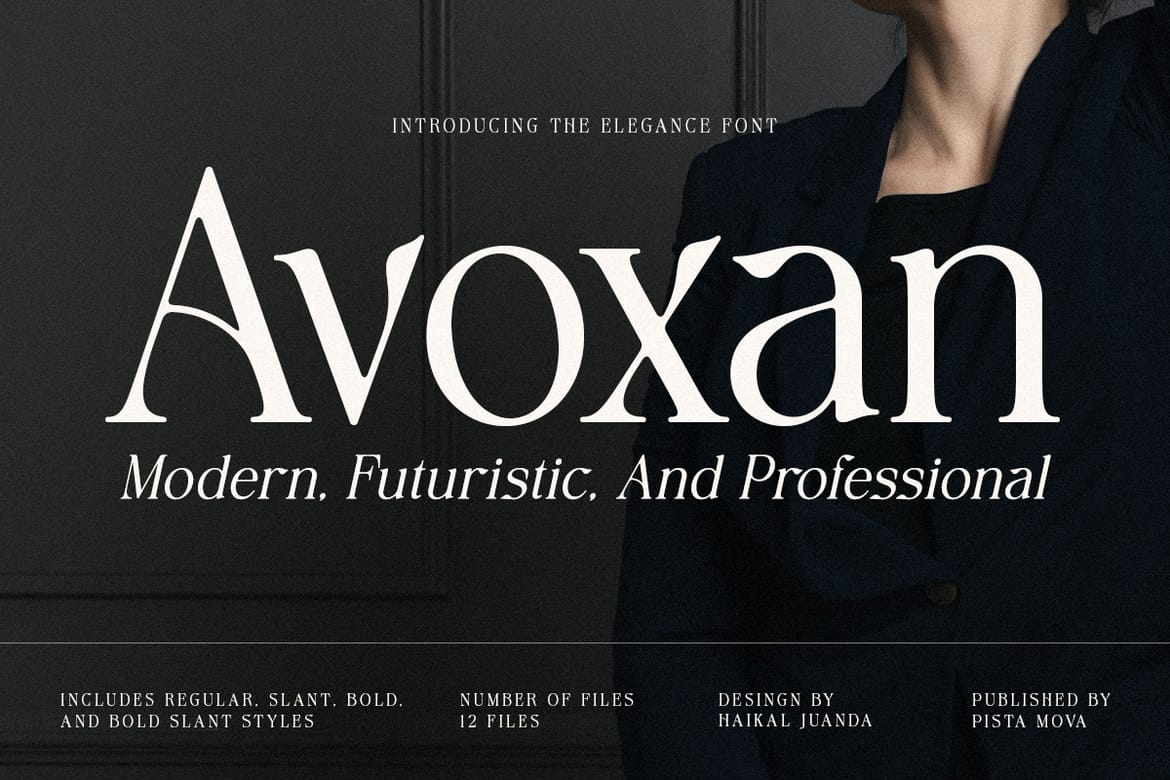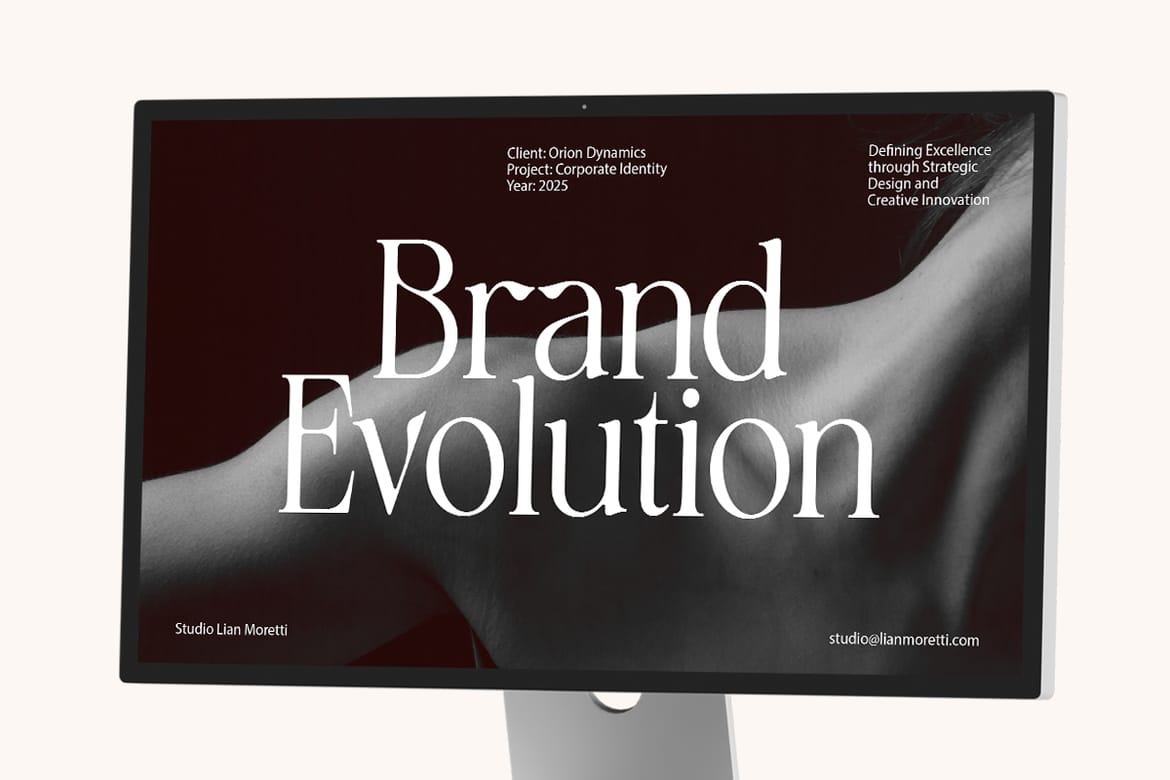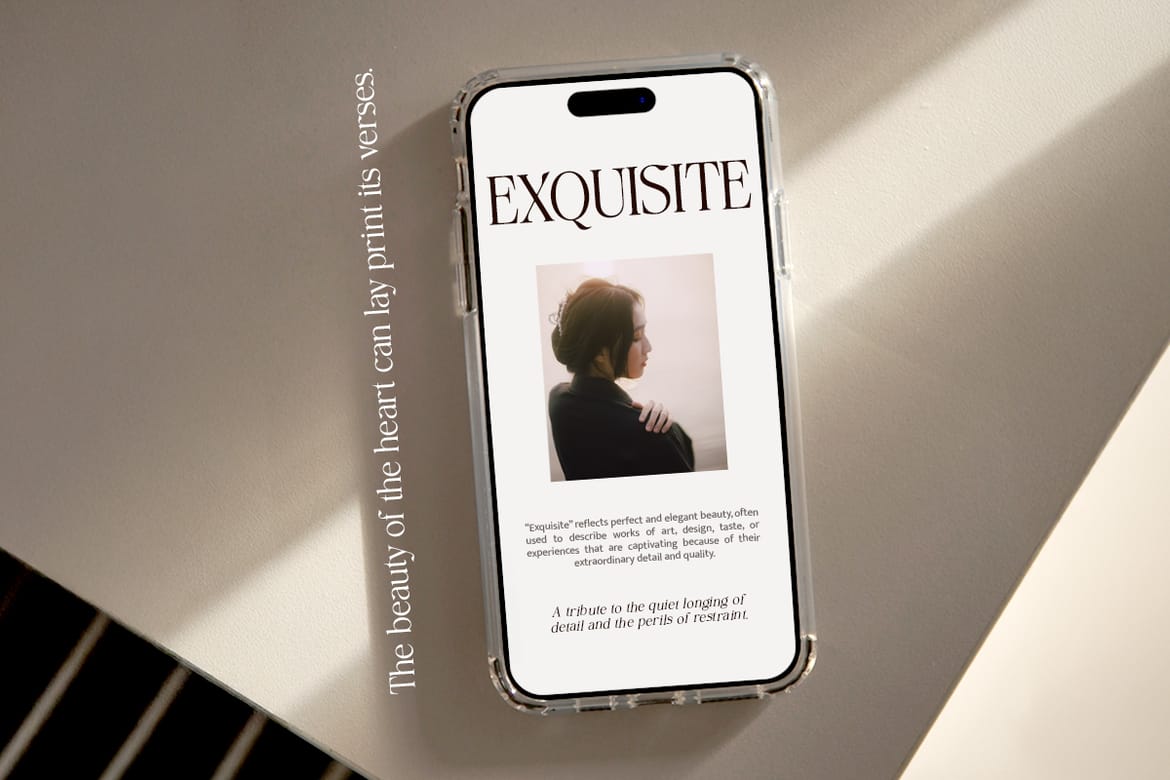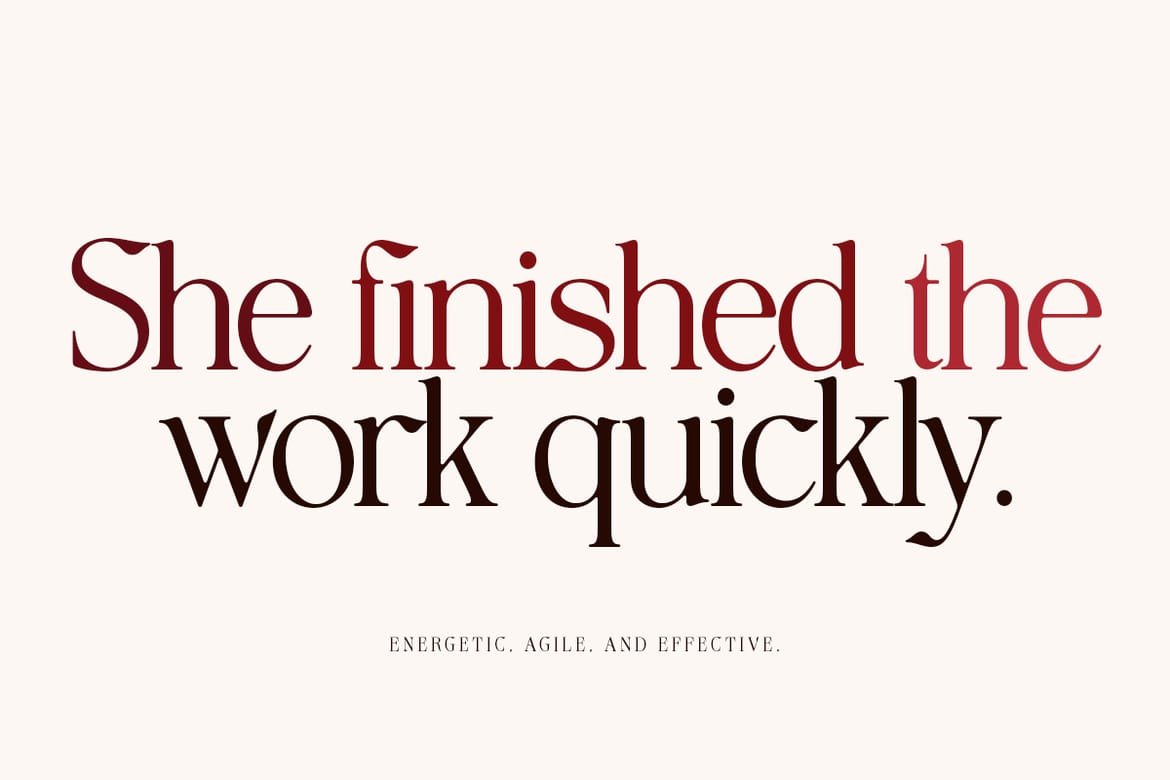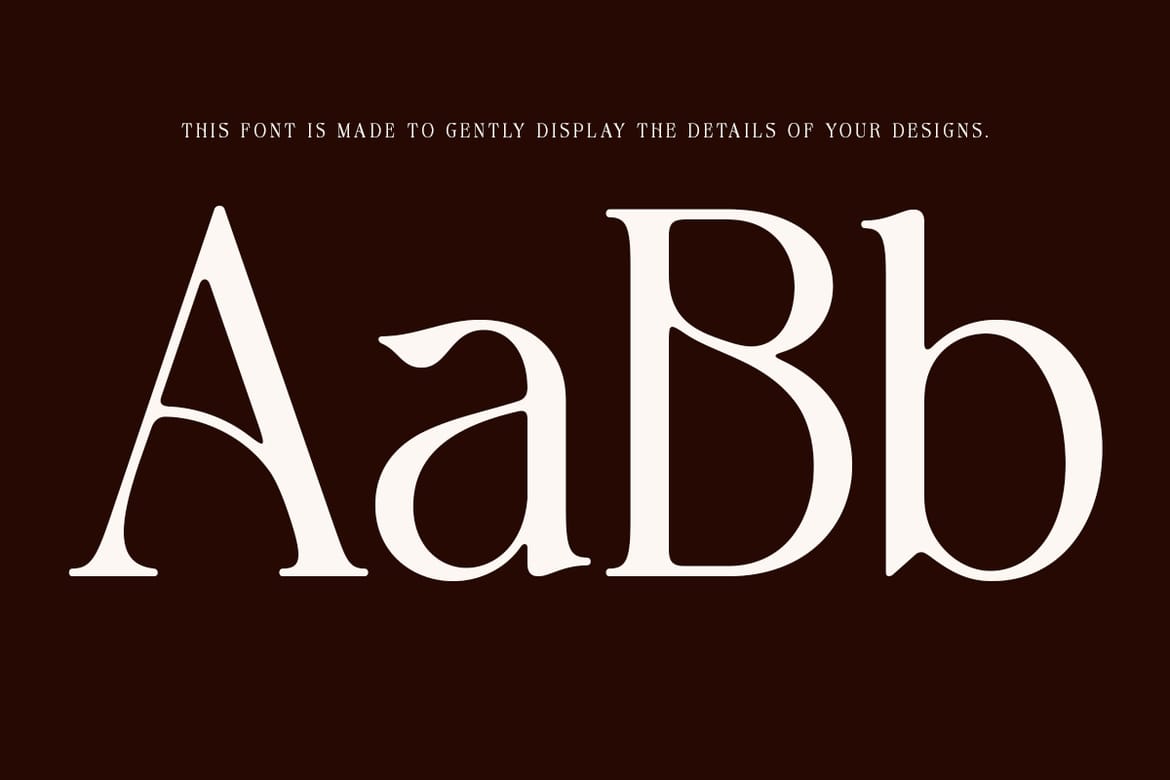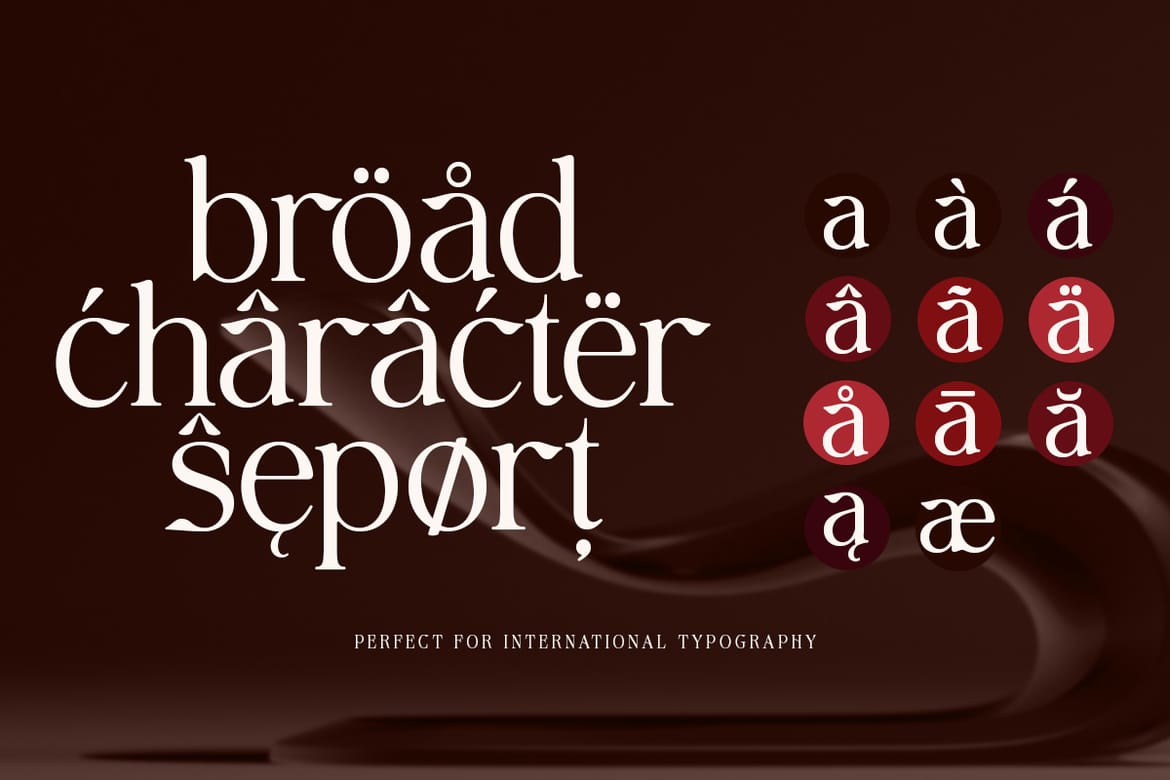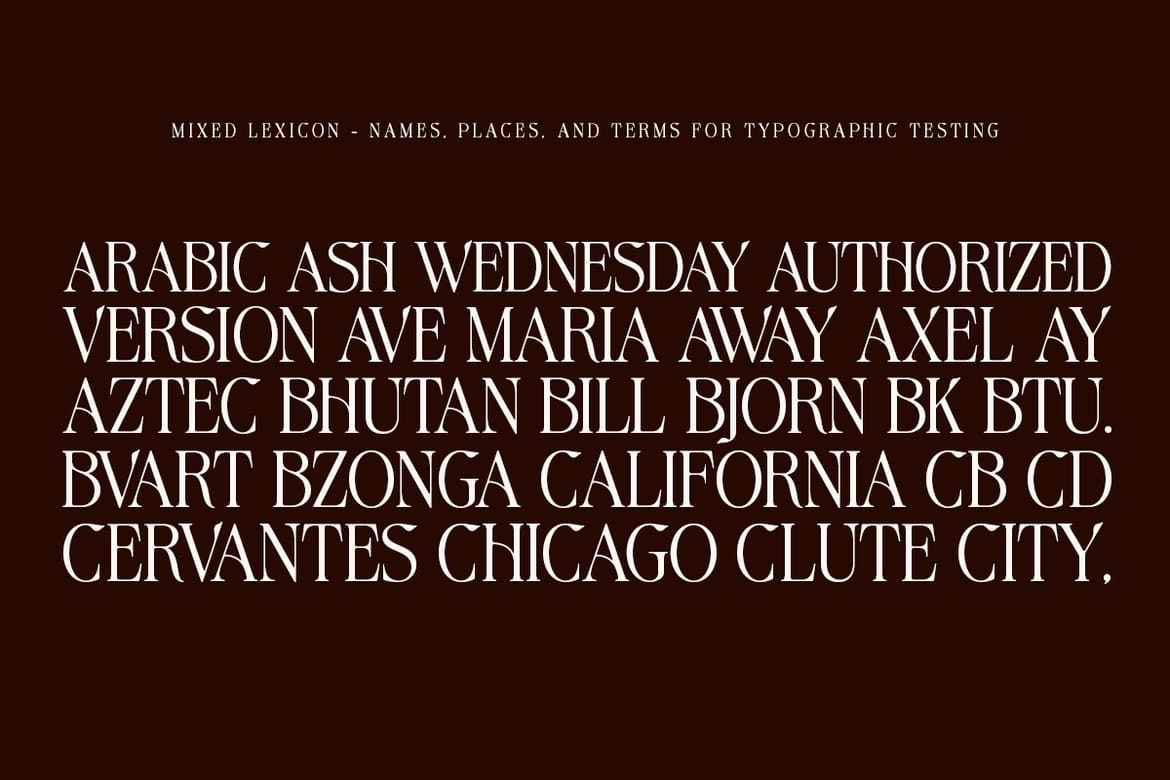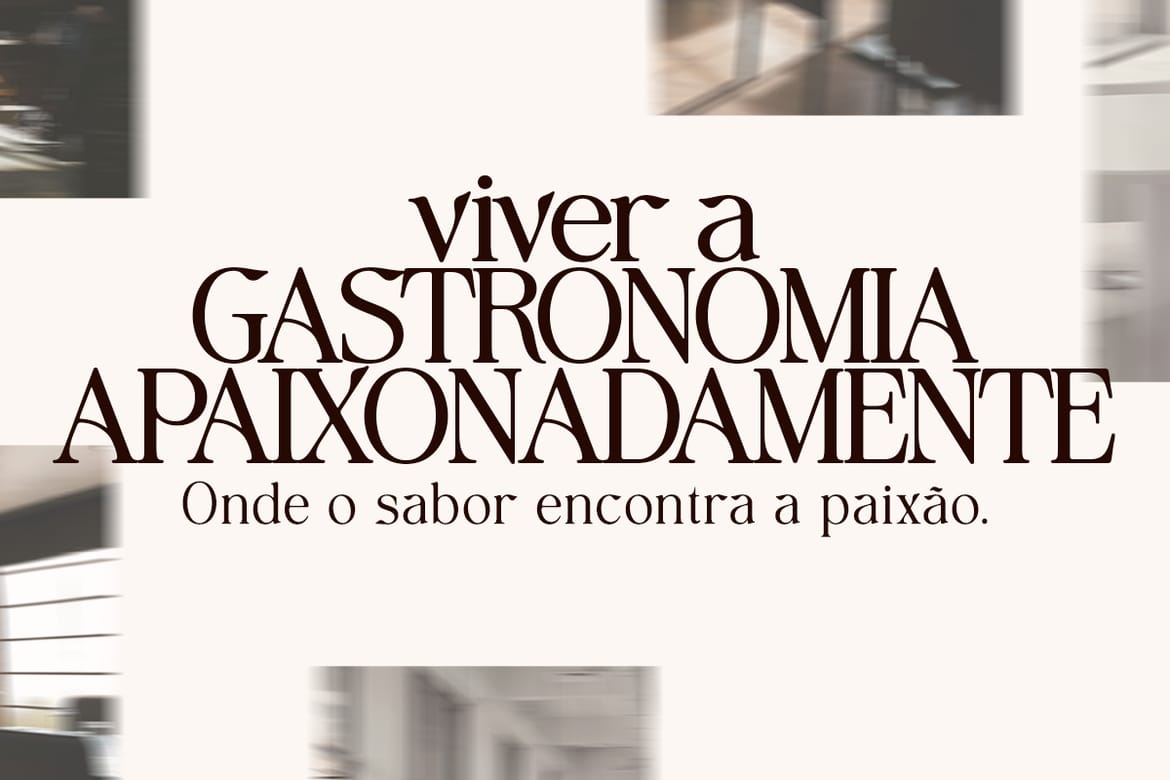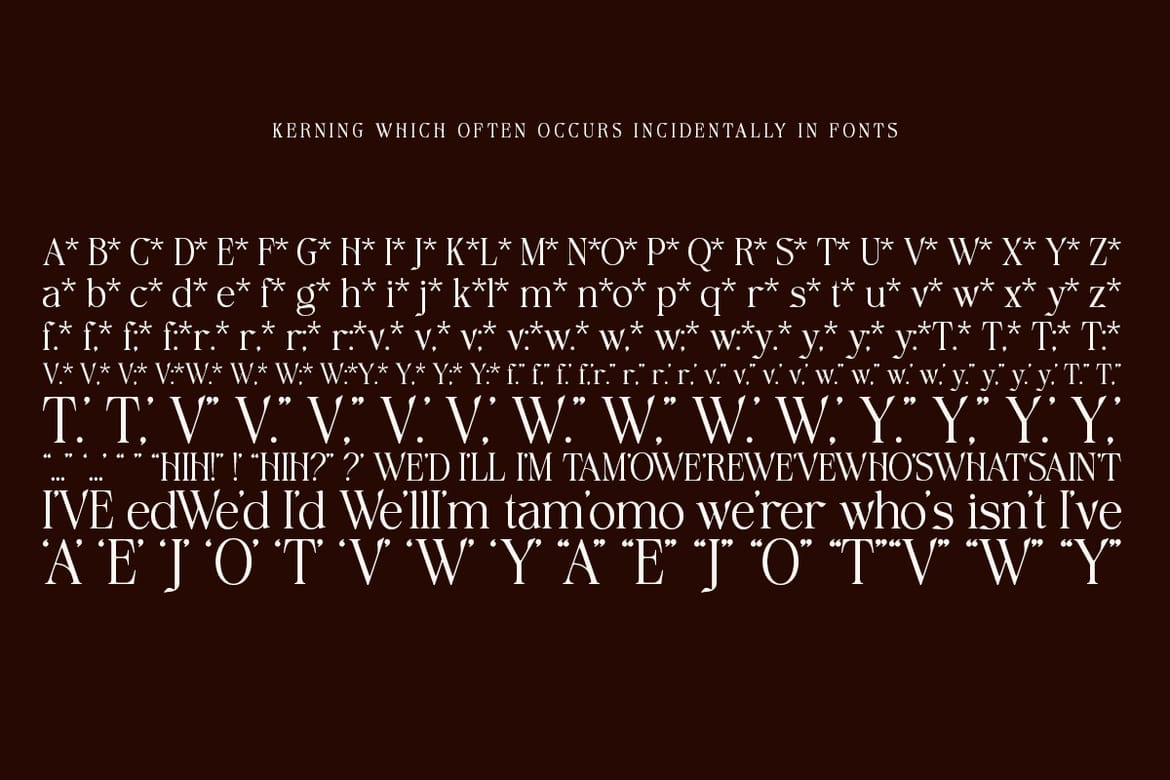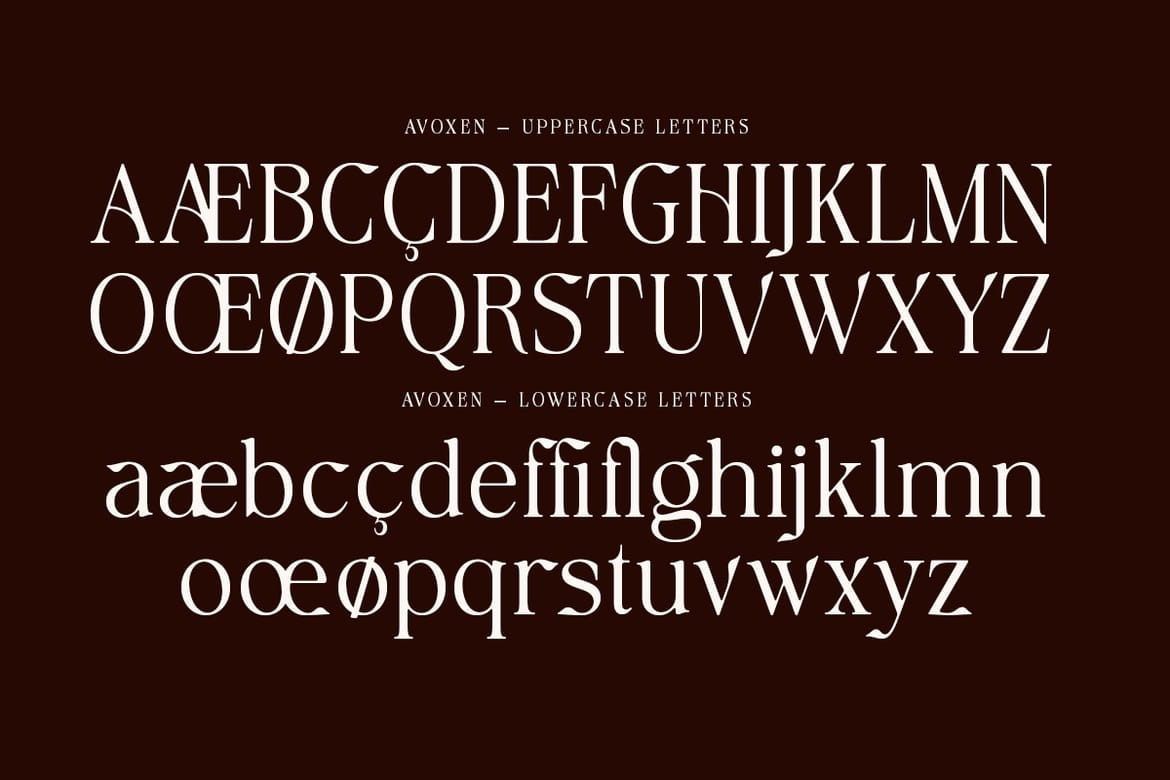
Introducing Avoxan: A Typeface for Timeless Elegance
Step into a world of refined beauty with Avoxan, a typeface that embodies the perfect balance between classic sophistication, modern sensibility, and subtle softness. Every curve and contour of Avoxan is carefully crafted to convey grace, confidence, and a gentle touch of elegance. Its high-contrast strokes and smooth transitions form a captivating visual harmony that enhances any design with quiet refinement.
Whether you're crafting an editorial masterpiece, shaping a memorable brand identity, or designing a captivating website, Avoxan brings both sophistication and softness to every project. Each character reflects precision and artistry — from its finely sculpted serifs to its harmonious proportions — celebrating the timeless beauty of typography with a contemporary and tender expression. The true Slant introduce fluid motion and graceful rhythm, offering designs that feel both elegant and effortlessly human.
Key Features:
- Effortlessly high-contrast serif letterforms with smooth curves
- True Slant style for fluid, graceful motion
- Ideal for editorial, branding, web, packaging, and stationery
- High-contrast serif with soft curves
- True slant for fluid graceful motion
- Perfect for editorial & branding